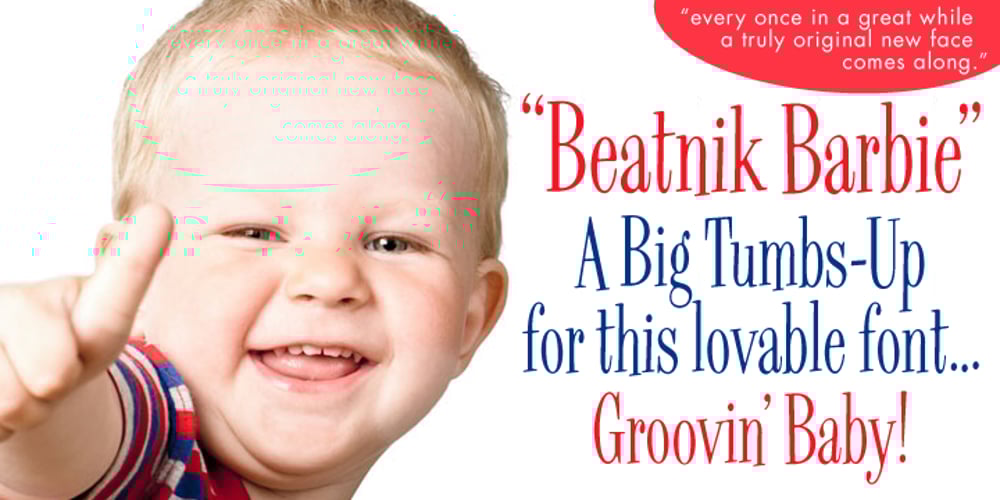
Beatnik Barbie
Beatnik Barbie font
Beatnik Barbie Font Family was designed by Alex Kaczun and published by Type Innovations. Beatnik Barbie contains 1 styles and family package options. Beatnik Barbie is a unconventional font design inspired by Jack Kerouac and the ‘Beat Generation’. It is an original design by Alex Kaczun and it is a derivative work based on his original ‘Beatnik’ font. It has an informal style about it, and invokes a casual and friendly mood. Beatnik Barbie incorporates many alternate letter forms, which work like ligatures, so when you type, it automatically substitutes different letter forms for a truly custom hand-written look. Perfect for any application. Beatnik Barbie truly has the heart and soul of the beat mentality. Groovin’ baby.